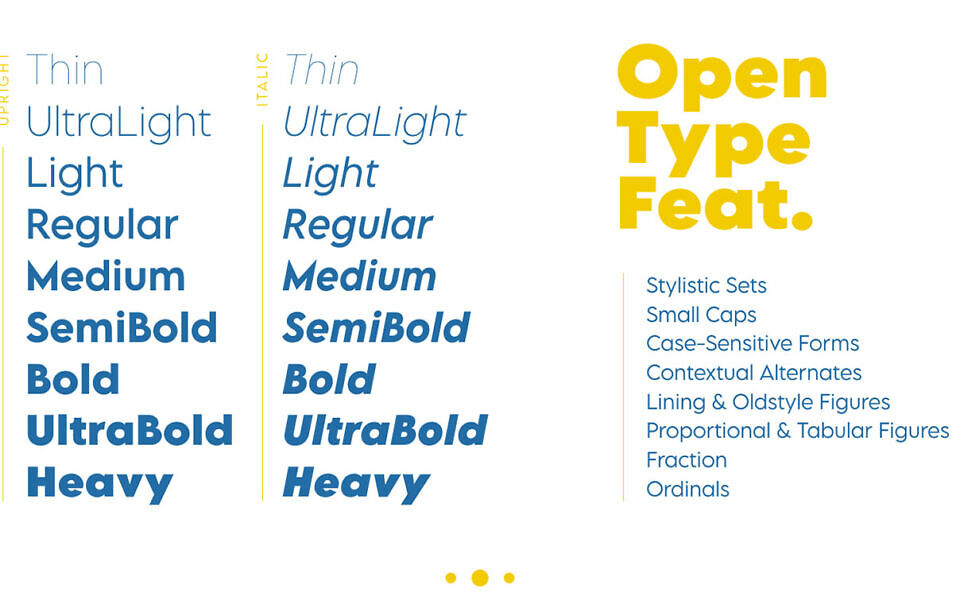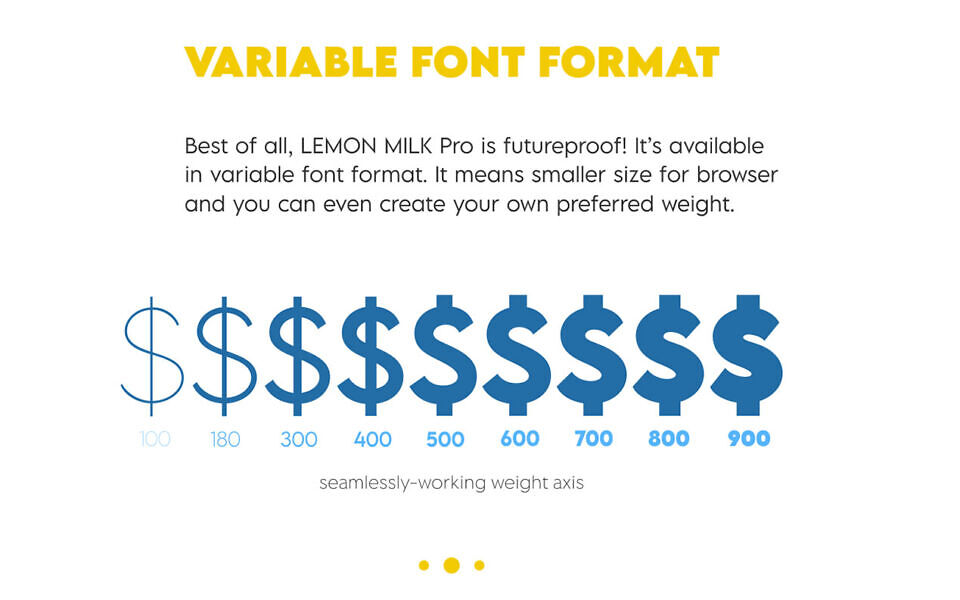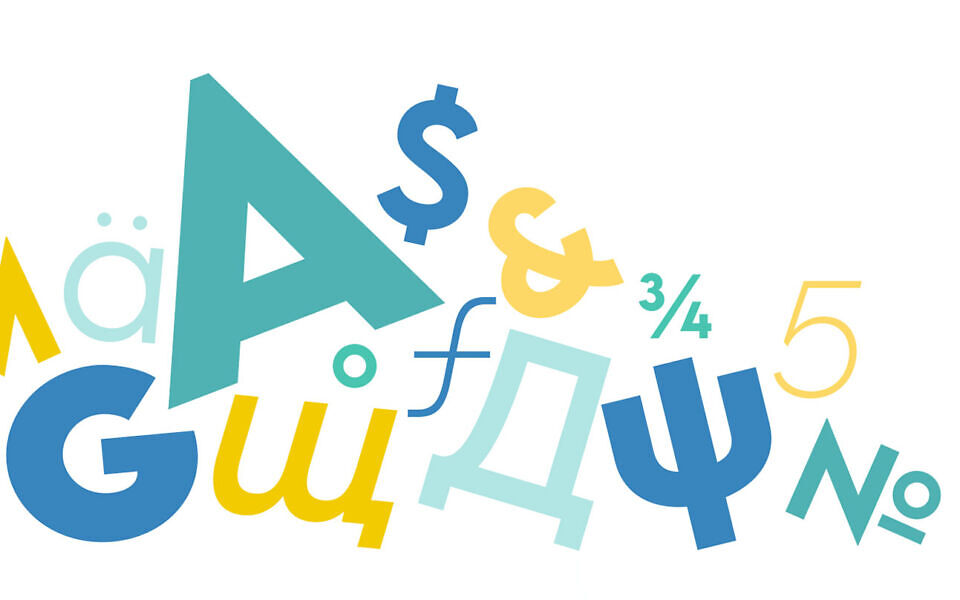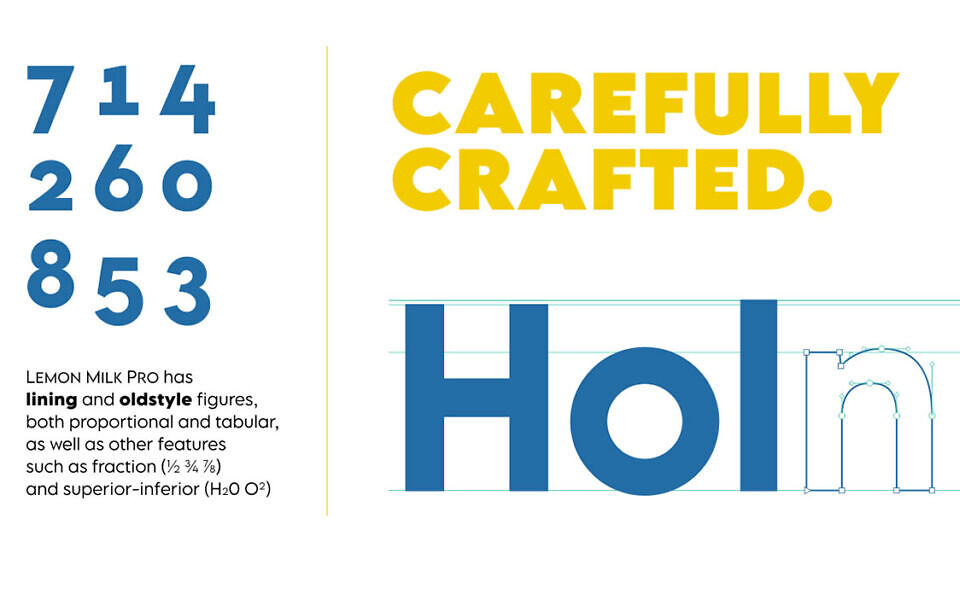
Designed as a geometric display typeface with strikingly sharp edges, Lemon Milk stands out with its unique character. Debuting as a free font, its reach is global, touching everything from local shops to international brands and high profiles.
Born in 2014 as the visual identity for the ‘Lemon/Milk’ zine, the family has evolved significantly over the years. From its humble beginnings with uppercase-only, one-weight, basic Latin coverage, Lemon Milk has grown into a comprehensive family in its pro version, boasting 9 weights with more glyphs and features.